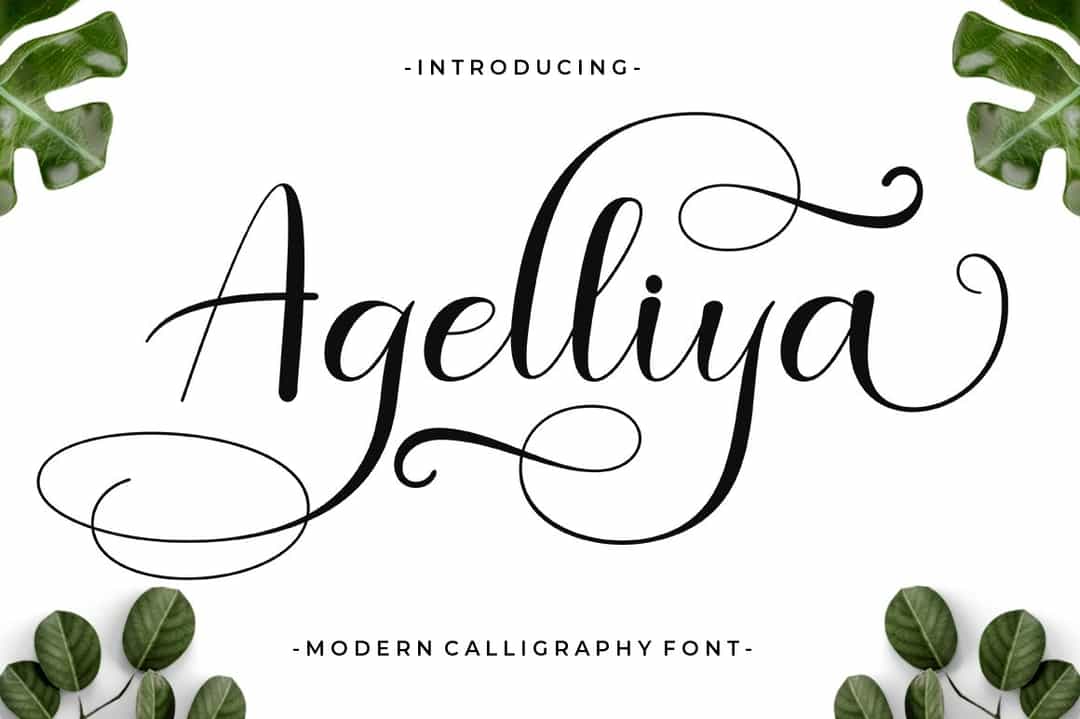
Agelliya is a brand new contemporary script calligraphy font with an unruly base line. Fashionable and feminine, its beautiful scripts can be found on wedding invitations, thank-you cards and greeting cards; quotes; business cards; logos etc.